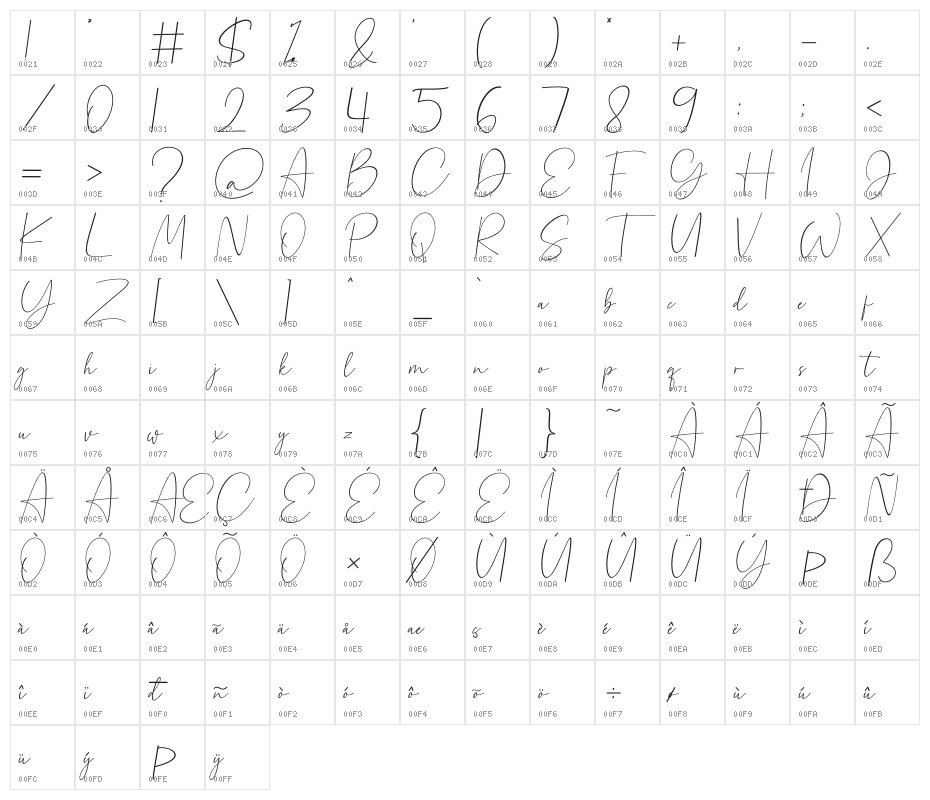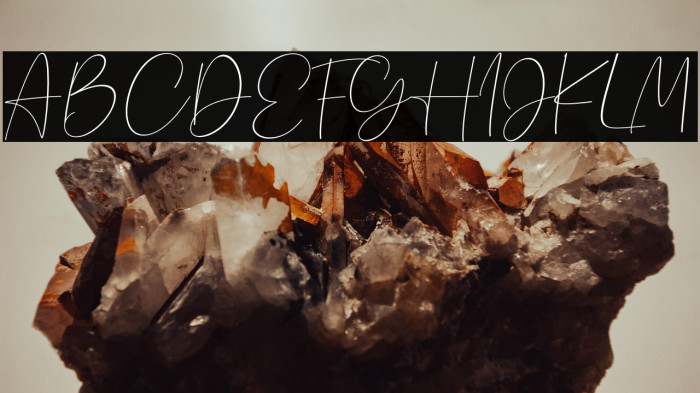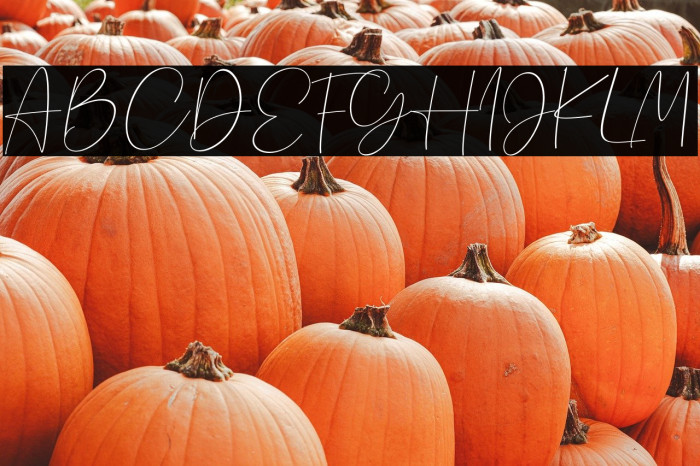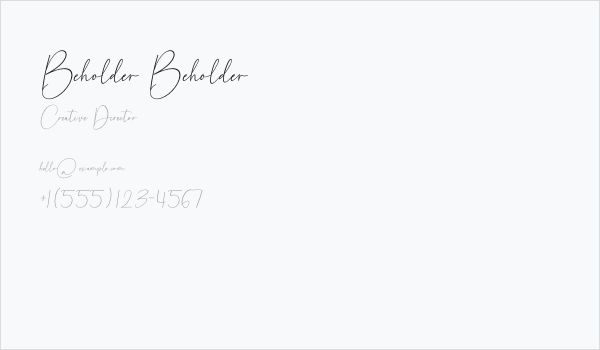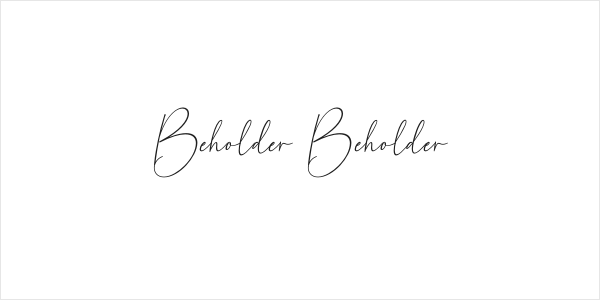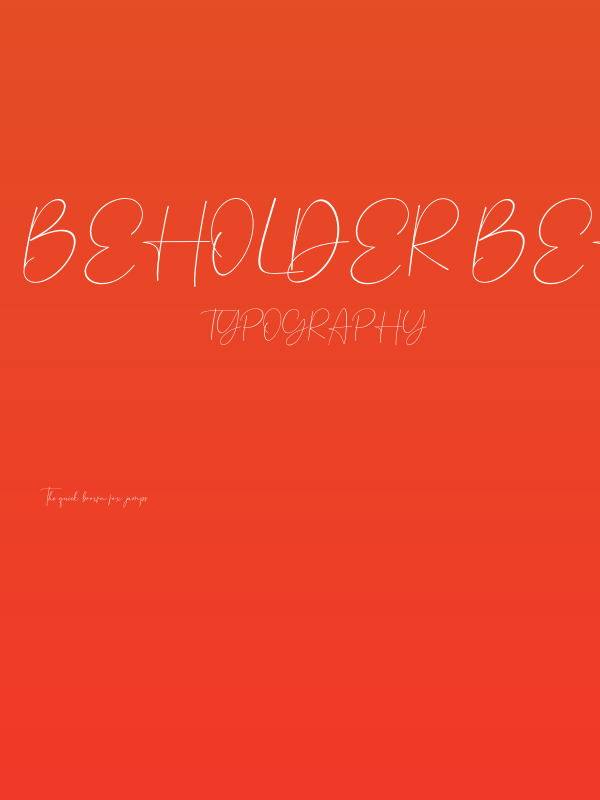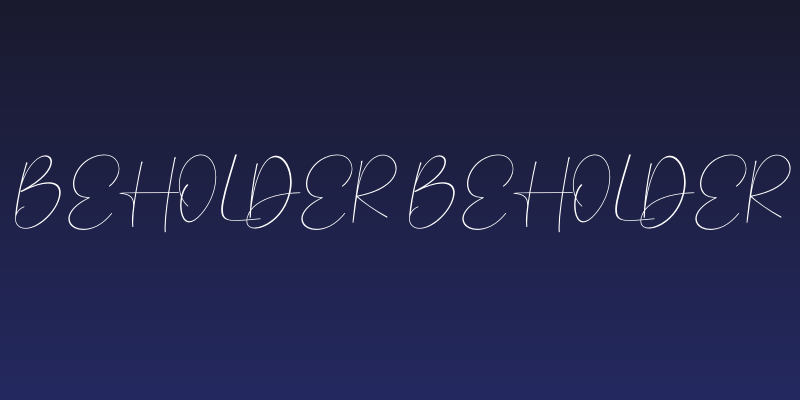
Beholder Font
Beholder Description
This font features a delicate and elegant script style with a handwritten appearance. The uppercase letters are tall and slender, with a slight slant that adds a touch of sophistication. The lowercase letters flow smoothly, maintaining a consistent rhythm and balance. The numerals are clean and straightforward, complementing the overall aesthetic. Special characters are designed with the same graceful touch, making them blend seamlessly with the rest of the font. The thin strokes and gentle curves give it a refined and modern look, suitable for various creative applications.